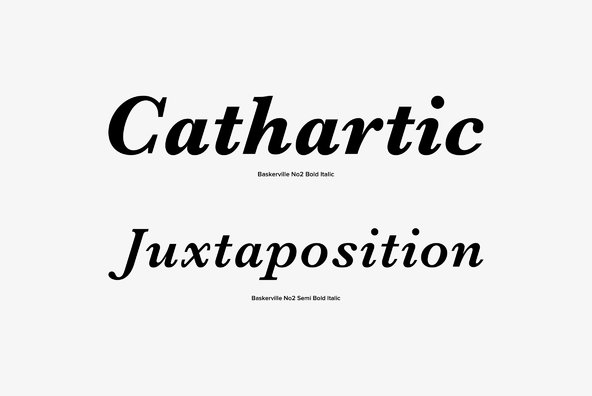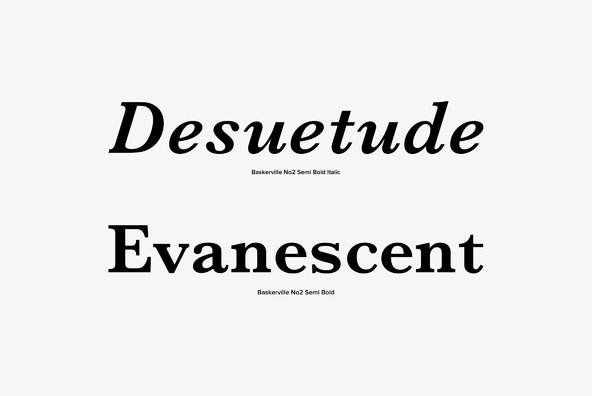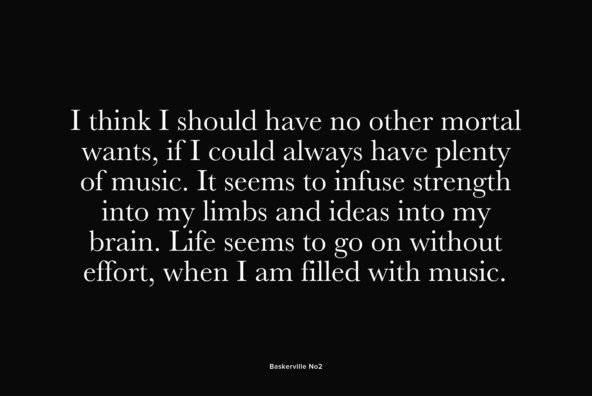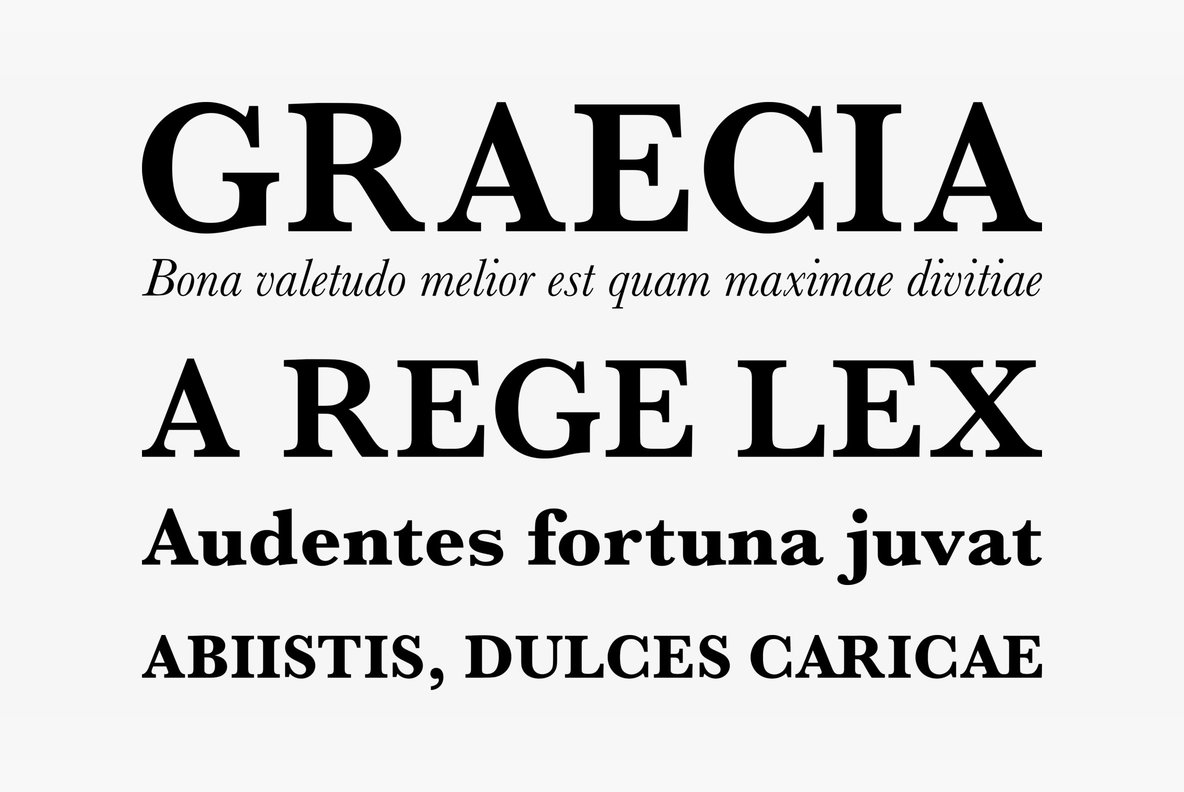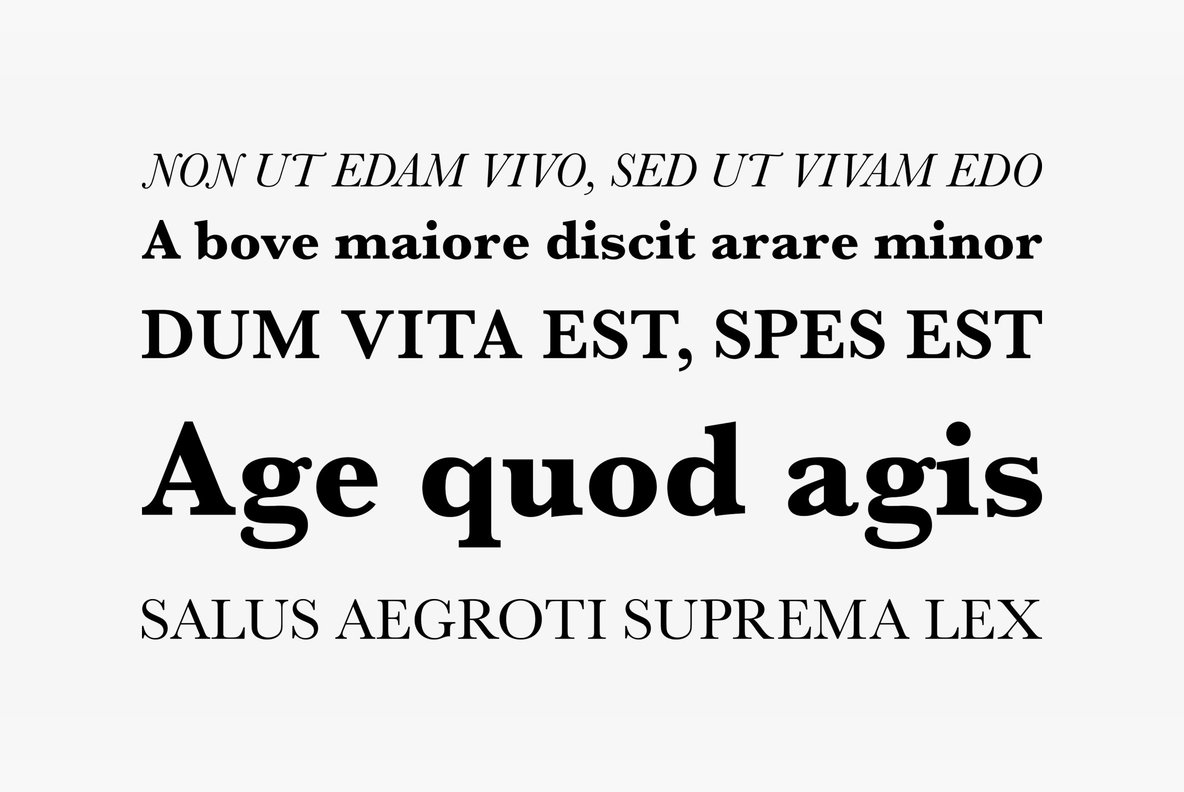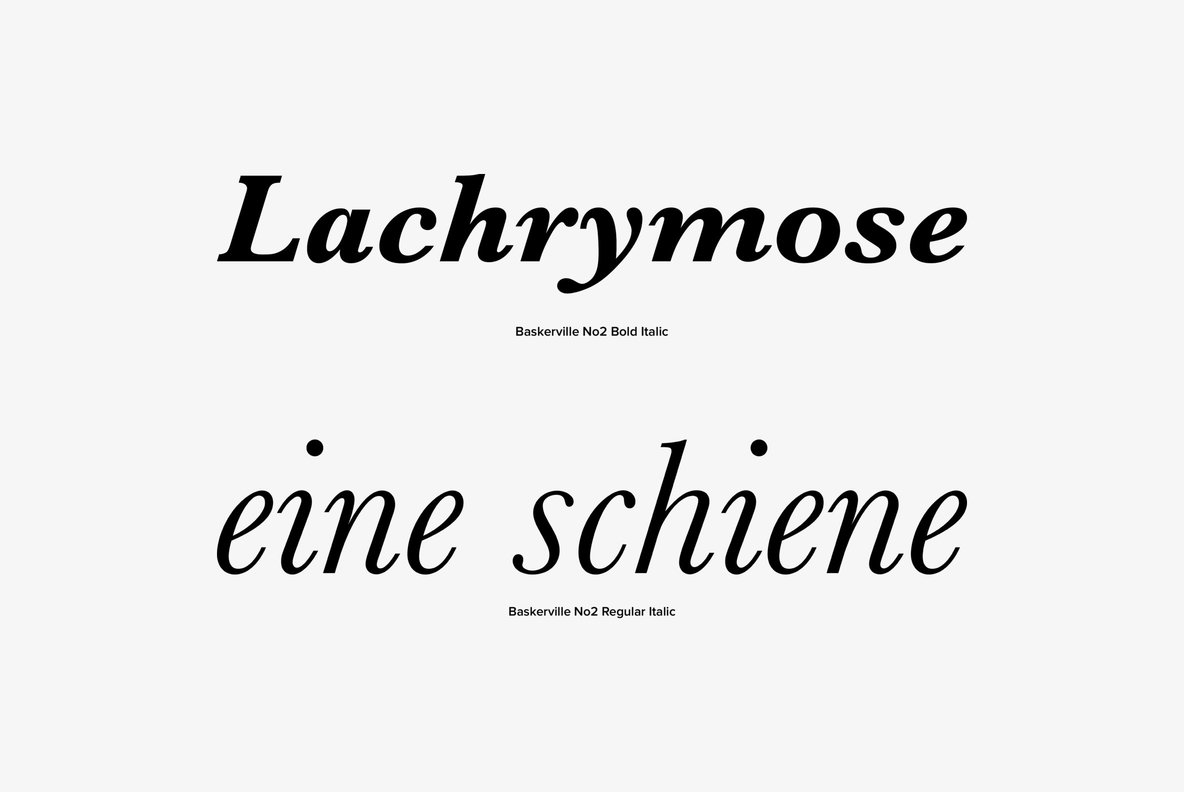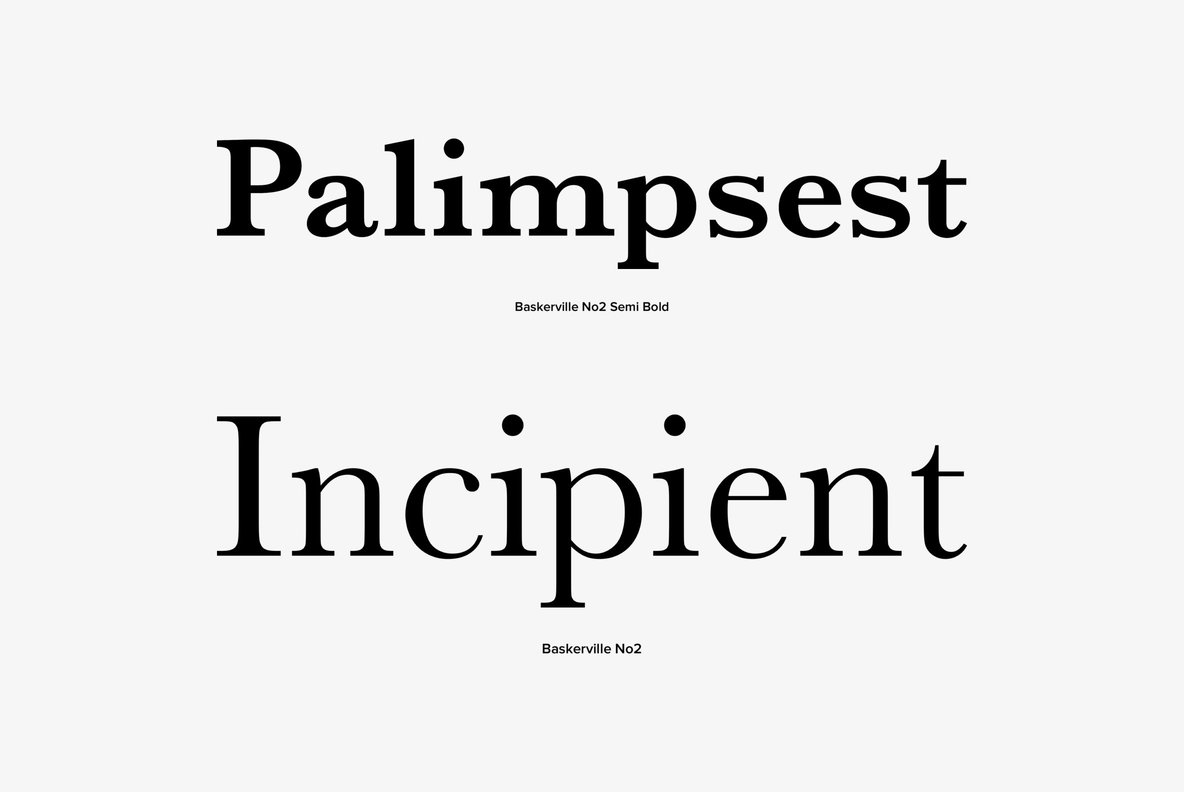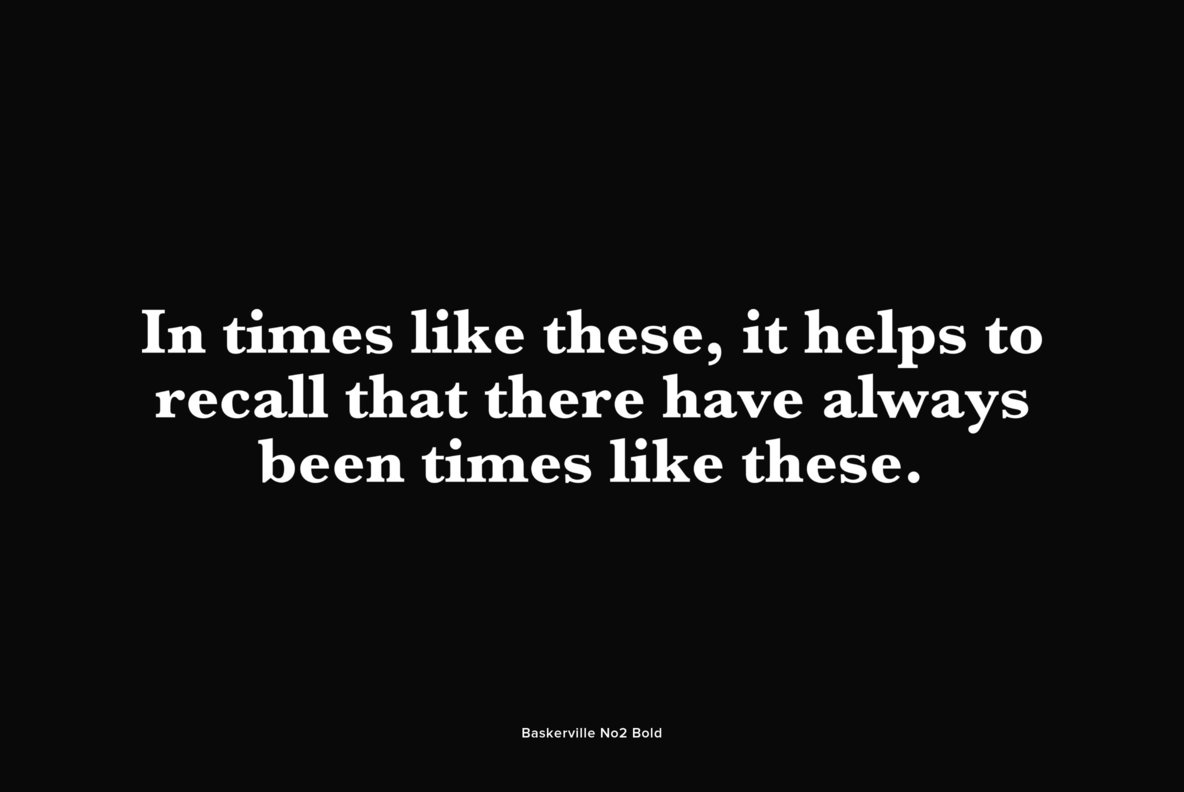
Baskerville No. 2 Font
Baskerville No. 2 is a classic and elegant serif font, originally designed by URW Studio in 1980. Baskerville No. 2 contains West, East, Turkish, Baltic, Romanian language support.